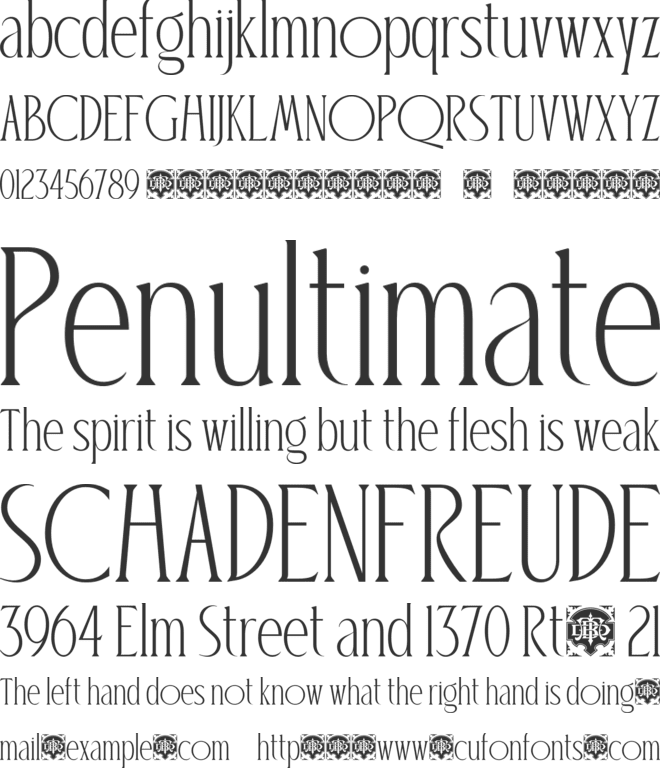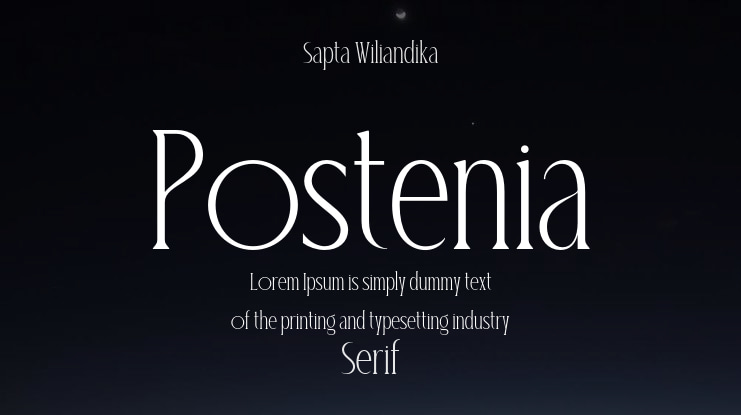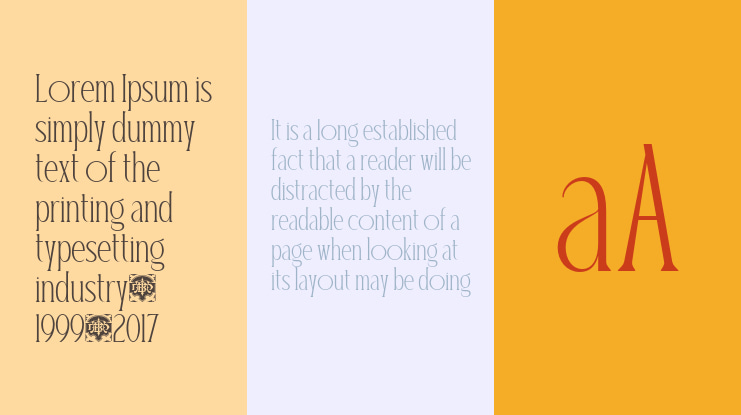
Postenia Font
Introducing Postenia, an elegant display serif font that brings a touch of minimalist beauty to your designs. Designed with graceful ligatures and stylish alternates, Postenia effortlessly blends classic charm with a modern feel. This elegant font comes with two styles: Regular and Italic — and when combined, they create a beautifully romantic look. Perfect for luxury branding, editorial design, wedding invitations, cosmetic packaging, logos, business branding, and any creative project that needs a stylish contrast.